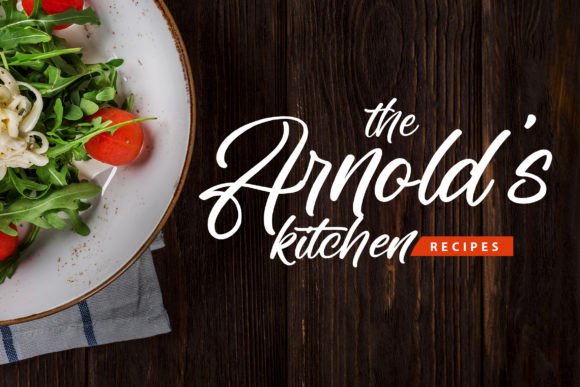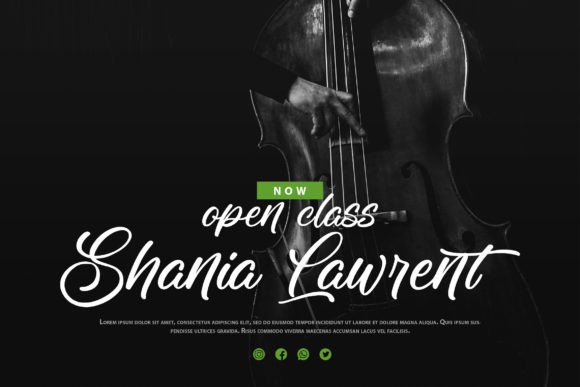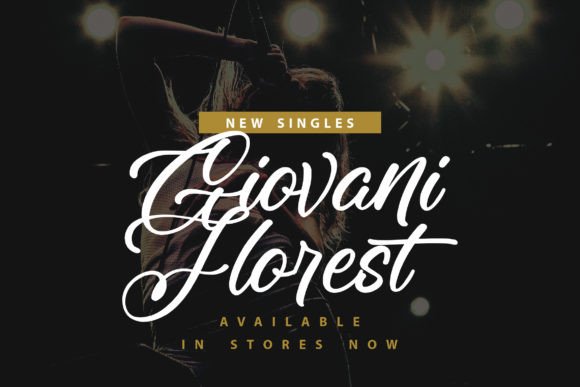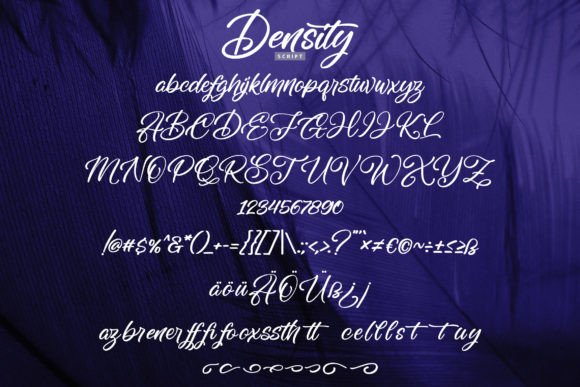
Density Font
Add Elegance to Your Designs with Density Font
Density Font is a beautifully crafted handwritten font that brings the elegance of calligraphy to your creative projects. Its smooth and flowing strokes create a warm and personal touch, making it perfect for a variety of design applications. Whether you’re working on wedding invitations, branding materials, or social media posts, Density Font adds charm and sophistication.
The balanced letterforms and natural curves ensure readability and style, whether in print or digital format. This font is designed to make your work stand out with a timeless handwritten appeal.
Versatile Uses for Density Font
Density Font fits a wide range of creative uses, including:
• Wedding invitations and greeting cards
• Business logos and branding
• Product packaging and labels
• Posters and marketing materials
• Social media graphics and inspirational quotes
• Business cards and stationery
Its handwritten calligraphy style enhances the personality of your text, making every project feel unique and heartfelt.
The font’s spacing and kerning are carefully to maintain clarity and beauty at all sizes. This makes DensityFont a practical choice for both and body text.
Why Designers Choose Density Font
Designers value DensityFont for its blend of modern and readable handwriting. Its clean yet elegant strokes make it versatile for both formal and casual projects. Whether you’re a professional or a this font adds a handcrafted touch that elevates your designs.
Use DensityFont to create logos, stylish invitations, or engaging social media posts that capture attention with grace.